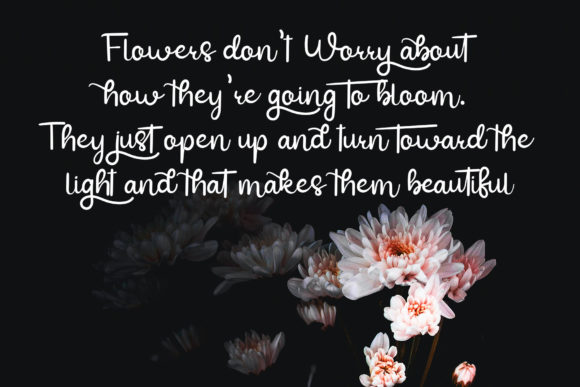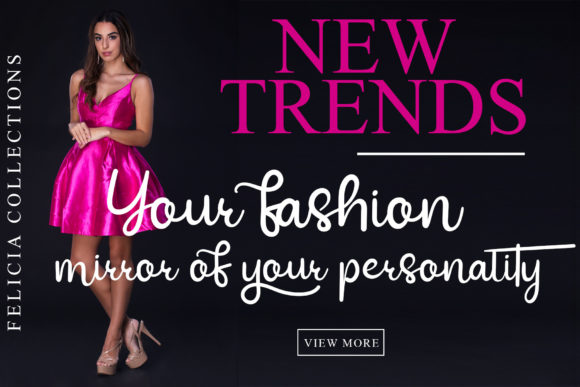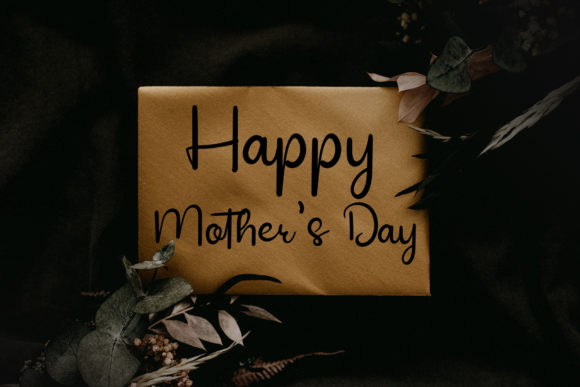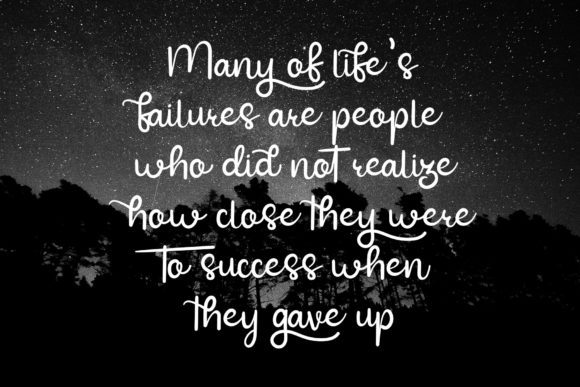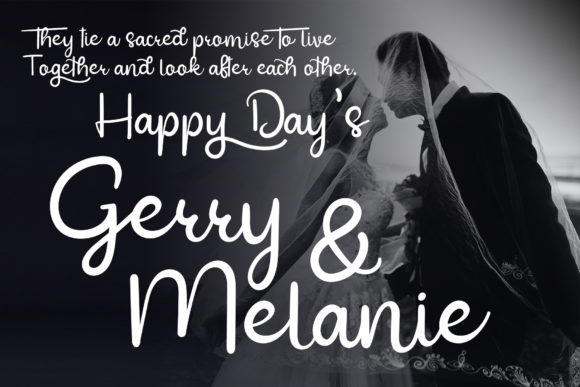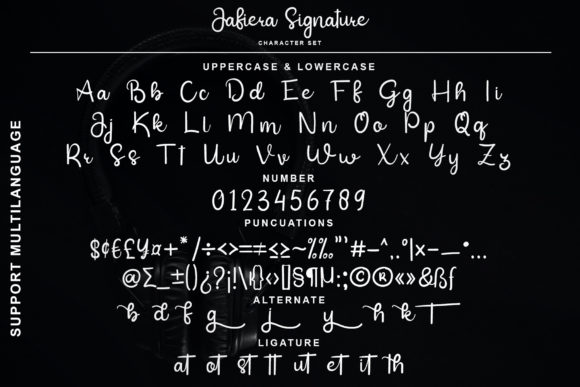
When a Font Speaks Volumes
You’ve spent hours pouring over your latest design project, tweaking every detail until it’s just right. And then, it hits you – the perfect font to tie everything together. For many designers, this moment is pure magic. It’s the difference between a good design and a great one.
Enter the Jafiera Signature Font, a flowing, refined script font that exudes sophistication and elegance. With its stylish alternates and ligatures, this font is the perfect match for any project that demands a touch of refinement. Whether you’re designing a wedding invitation, a luxury brand’s logo, or a high-end website, the Jafiera Signature Font is sure to make a lasting impression.
As a designer, you know the value of a well-chosen font. It’s not just about aesthetics – it’s about conveying the tone and personality of your brand. The Jafiera Signature Font is a valuable addition to any designer’s toolkit, offering a level of sophistication and elegance that’s hard to find elsewhere.
Jafiera Signature Font Key Features
- Font Family: Jafiera Signature Font is a unique, modern script font designed for signatures, logos, and titles.
- Font Size: The font is designed to be highly legible at various sizes, from 10pt to 72pt, making it suitable for both digital and print applications.
- Unique Characteristics: Jafiera Signature Font features a distinctive, flowing script style with subtle flair and texture, making it perfect for creating eye-catching signatures and logos.
Designer Review: Jafiera Signature Font
Overall, I’m quite impressed with the Jafiera Signature Font. It’s a beautiful, elegant script font that would be perfect for branding and advertising projects that require a touch of sophistication. ✨
The font’s fluidity and connection between letters are spot on, making it a joy to read and type in. The subtle flair at the end of each letter adds a nice touch of personality to the design. ✨
- Beautiful, elegant script design
- Fluid and connected letterforms
- Subtle flair at the end of each letter
- Perfect for branding and advertising projects
However, I do have a few criticisms. The font can be quite dense, which may make it difficult to read in certain contexts. Additionally, the font’s ligatures can be a bit inconsistent, which may affect the overall flow of text. ⚠️
Limitsations:
- Dense font can be difficult to read in certain contexts
- Inconsistent ligatures can affect text flow
Despite these limitations, I would still highly recommend the Jafiera Signature Font for designers looking to add a touch of elegance to their projects. With a bit of careful use, this font can really shine and make a lasting impression. ✨
Getting the Most Out of Jafiera Signature Font
For optimal results, use Jafiera Signature Font in conjunction with bold or italic styles to create emphasis and visual interest.
Experiment with different font sizes and colors to create a unique and cohesive visual identity.
Jafiera Signature Font is ideal for:
Creating professional business cards and letterheads.
Designing marketing materials and brochures.
Developing personal branding and signature styles.
Alternatives to Jafiera Signature Font for Designers
Carolyna Pro is a modern, elegant script font ideal for creating high-end branding and advertising materials. It’s perfect for use in invitations, packaging, and luxury product labels. Compared to Jafiera Signature Font, Carolyna Pro has a more refined and sophisticated feel, making it suitable for high-end businesses and events.
Great Vibes is a beautiful, handwritten font that’s great for creating a friendly and approachable atmosphere. It’s perfect for use in social media graphics, blogs, and marketing materials. Compared to Jafiera Signature Font, Great Vibes has a more casual and relaxed feel, making it suitable for creative and artistic projects.
Alex Brush is a elegant, brush-script font that’s perfect for creating a sense of sophistication and refinement. It’s great for use in branding, advertising, and editorial materials. Compared to Jafiera Signature Font, Alex Brush has a more classic and timeless feel, making it suitable for traditional and heritage-based businesses.